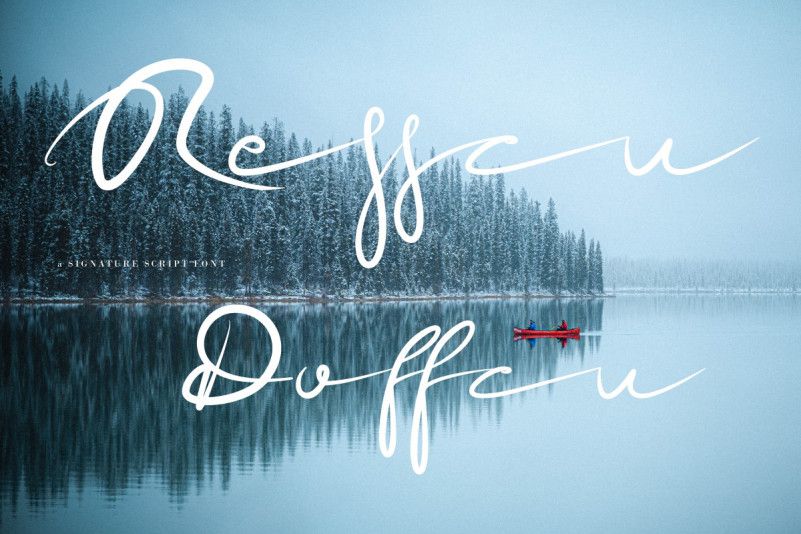
ResscuDoffcu Font
ResscuDoffcu is elegant signature. It looks original and can be used for all your project needs, Each glyph has its own uniqueness and when meeting with others will provide dynamic and pleasing proximity. This font can be used at any time and any project.